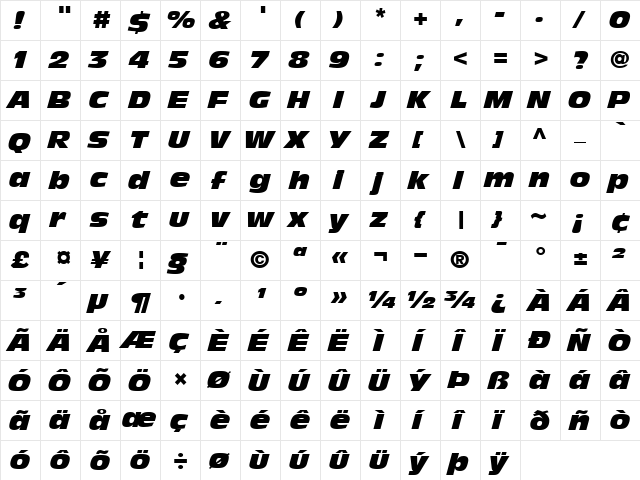
AntiqueOlive NordItalic
Design Context for AntiqueOlive Typeface
AntiqueOlive has the warm character of retro typography — evoking diners, record sleeves, and the golden age of print advertising. Its italic angle brings a sense of urgency and motion to the letterforms.
Perfect for vintage-inspired branding, retro packaging, nostalgia campaigns, and period-accurate editorial design.
Font Pairing: Combine AntiqueOlive with a simple slab or neutral sans — period-accurate companions reinforce the vintage feel without competing for attention.
Pro Tip: Use AntiqueOlive for headlines and pull quotes rather than body copy — its personality is best appreciated in short, focused bursts.